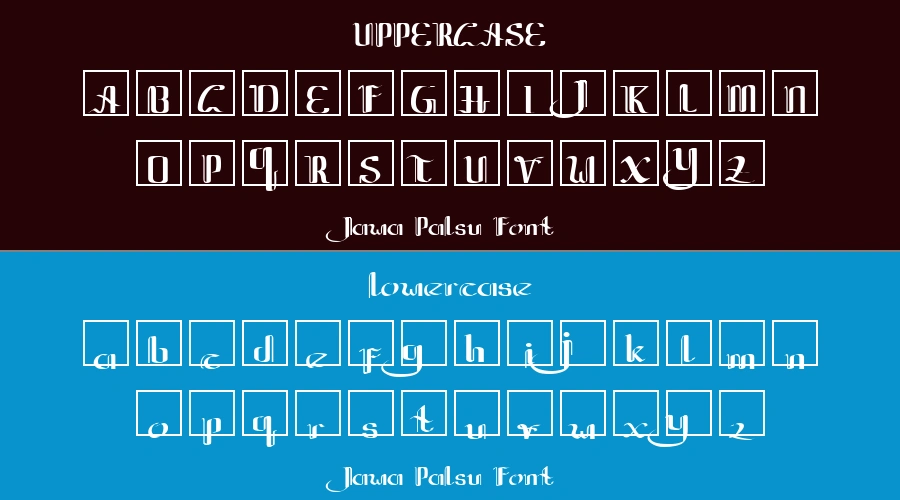
About Jawa Palsu Font
Jawa Palsu Font embodies typographic excellence through its masterful combination of commanding presence and reliability. Created for engineering specs, this typeface delivers exceptional versatility and ceremonial suitability across all applications. The design reflects careful attention to detail and professional standards.
Advanced capabilities include distinctive strong contrast and versatile connecting forms, giving designers creative control. When used in logos, Jawa Palsu Font exhibits remarkable body text reading. The harmonious balance between descender depth and cultural relevance sets this typeface apart.